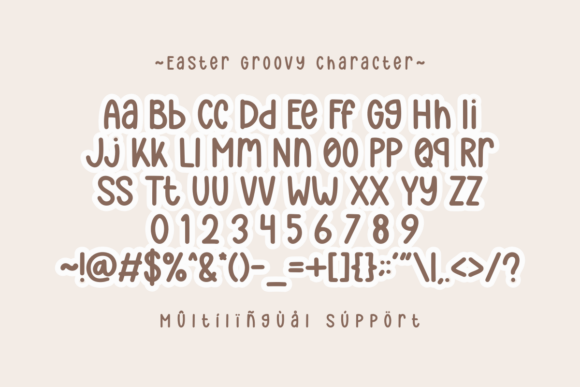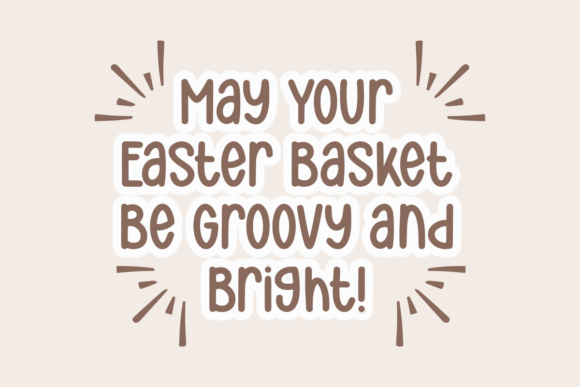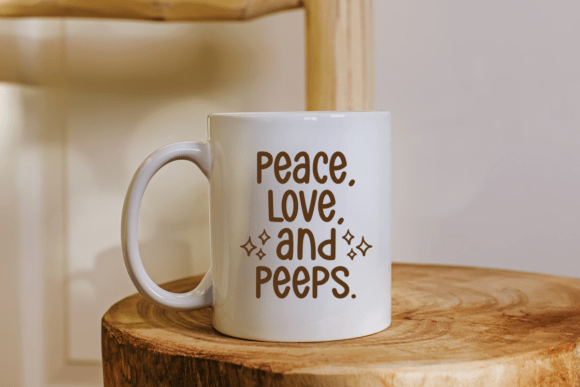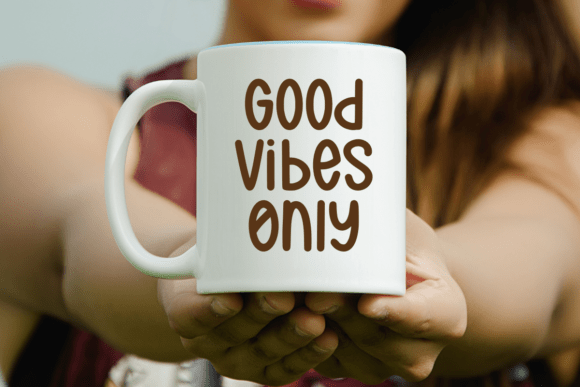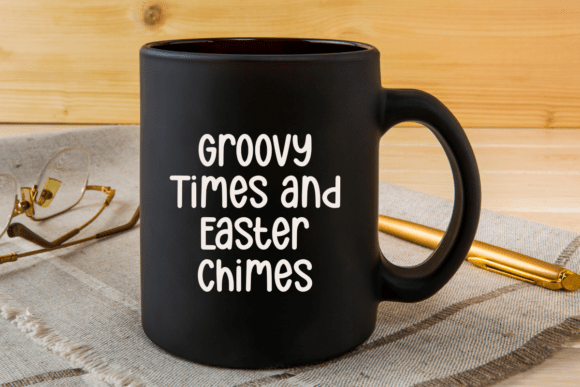
Easter Groovy Font: The Perfect Addition to Your Design Arsenal
Are you a designer or crafter looking for a unique and versatile font to elevate your Easter-themed designs? Look no further than Easter Groovy Font! This adorable and minimalist sans serif font is perfect for creating stunning greeting cards, wedding invitations, gift labels, mugs, t-shirts, quotes, labels, and more.
What Makes Easter Groovy Font So Special?
Easter Groovy Font is a beautifully crafted font that boasts a clean and simple design. Its sans serif style gives it a modern and fresh look that’s perfect for a wide range of design projects. The font’s minimalist approach ensures that it pairs well with various graphics, patterns, and colors, making it incredibly versatile.
Perfect for Easter-themed Designs
Easter is a time for vibrant colors, playful designs, and joyful celebrations. Easter Groovy Font is specifically designed to capture the spirit of Easter with its cute and groovy style. Whether you’re creating Easter-themed greeting cards, decorations, or gift tags, this font is sure to add a touch of whimsy and fun to your designs.
Use Cases for Easter Groovy Font
The possibilities are endless when it comes to using Easter Groovy Font. Here are some ideas to get you started:
- Greeting Cards: Create beautiful and personalized Easter greeting cards for friends and family.
- Wedding Invitations: Add a touch of Easter charm to your wedding invitations, especially if you’re planning a spring or Easter-themed wedding.
- Gift Labels: Make your gifts stand out with cute and colorful labels featuring Easter Groovy Font.
- Mugs and T-Shirts: Design fun and quirky mugs and t-shirts perfect for Easter celebrations.
- Quotes and Labels: Use Easter Groovy Font to create inspiring quotes and labels for your designs.
Why Designers and Crafters Love Easter Groovy Font
Easter Groovy Font has quickly become a favorite among designers and crafters due to its unique combination of style and versatility. Here are some reasons why:
- Easy to Read: The font’s clean design ensures that it’s easy to read, even at small sizes.
- Highly Versatile: Easter Groovy Font pairs well with various graphics, patterns, and colors, making it perfect for a wide range of design projects.
- Cute and Playful: The font’s adorable and groovy style adds a touch of whimsy and fun to any design.
Tips for Using Easter Groovy Font
To get the most out of Easter Groovy Font, here are some tips to keep in mind:
- Experiment with Colors: Try pairing Easter Groovy Font with different colors and patterns to create unique and eye-catching designs.
- Play with Sizes: Experiment with different font sizes to create visual interest and hierarchy in your designs.
- Combine with Graphics: Pair Easter Groovy Font with graphics and illustrations to add depth and interest to your designs.
Easter Groovy Font is a must-have for designers and crafters looking to create stunning Easter-themed designs. Its cute and minimalist sans serif style makes it perfect for a wide range of projects, from greeting cards to mugs and t-shirts. With its versatility, ease of use, and adorable style, Easter Groovy Font is sure to become a favorite in your design arsenal.